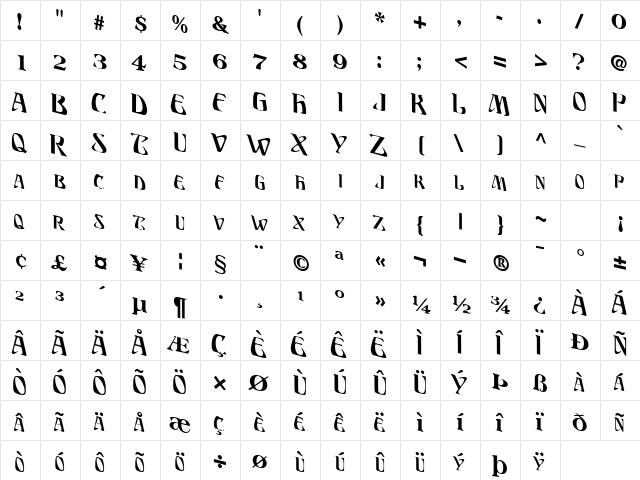
DisPlacedFont Regular
Design Context for DisPlacedFont Typeface
DisPlacedFont is a composed and adaptable typeface that performs quietly and consistently across a wide range of design contexts.